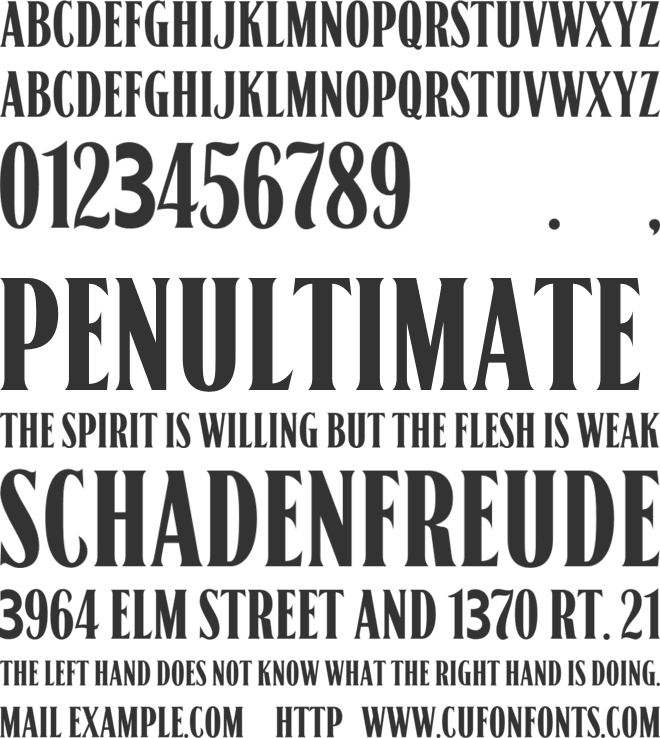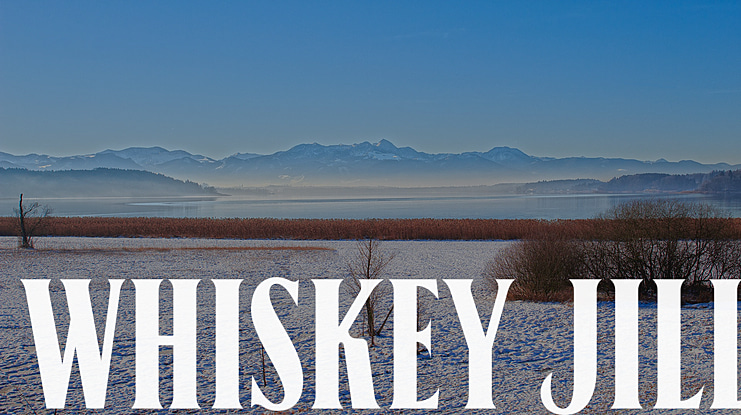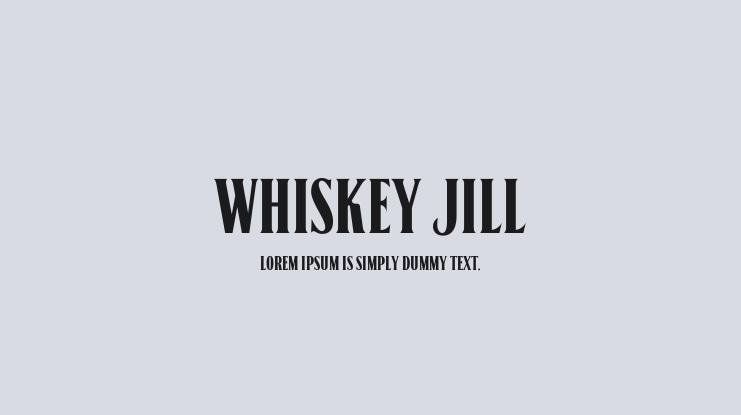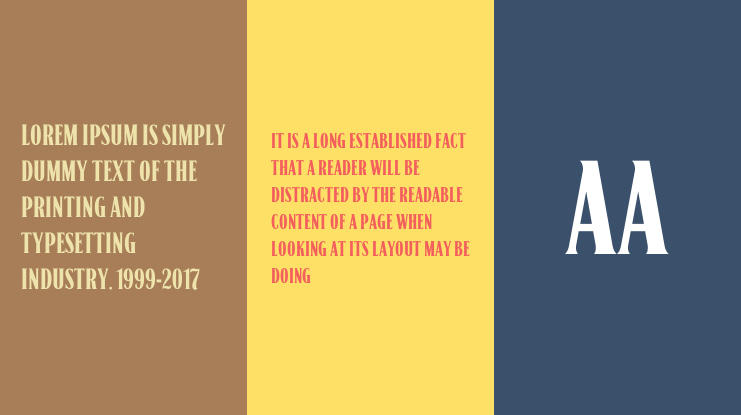
Whiskey Jill Font
I took my inspiration for this font from a popular whiskey label. This demo is all caps with limited punctuation and a 3 that doesn't match. My small business commercial version has upper and lowercase, small caps, alternate caps, and multi-language support. Check it out on Etsy: https://www.etsy.com/listing/714533138/whiskey-jill-font-otf